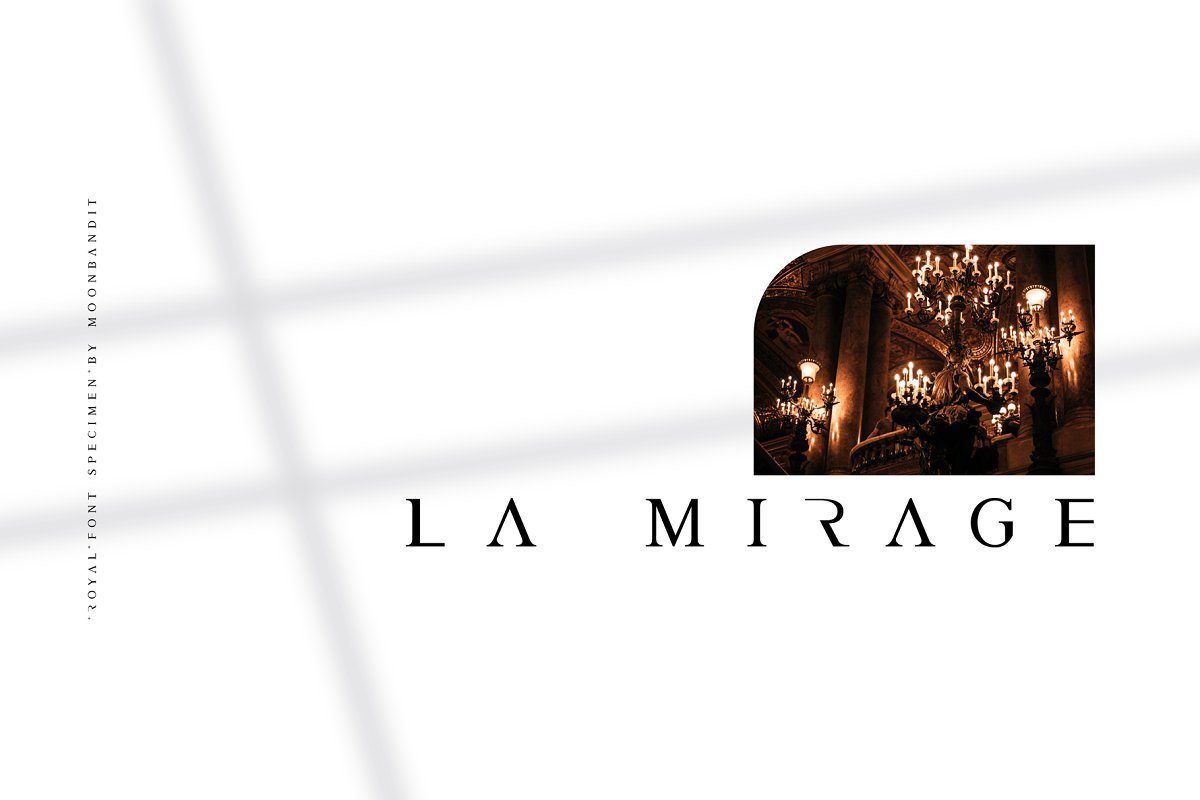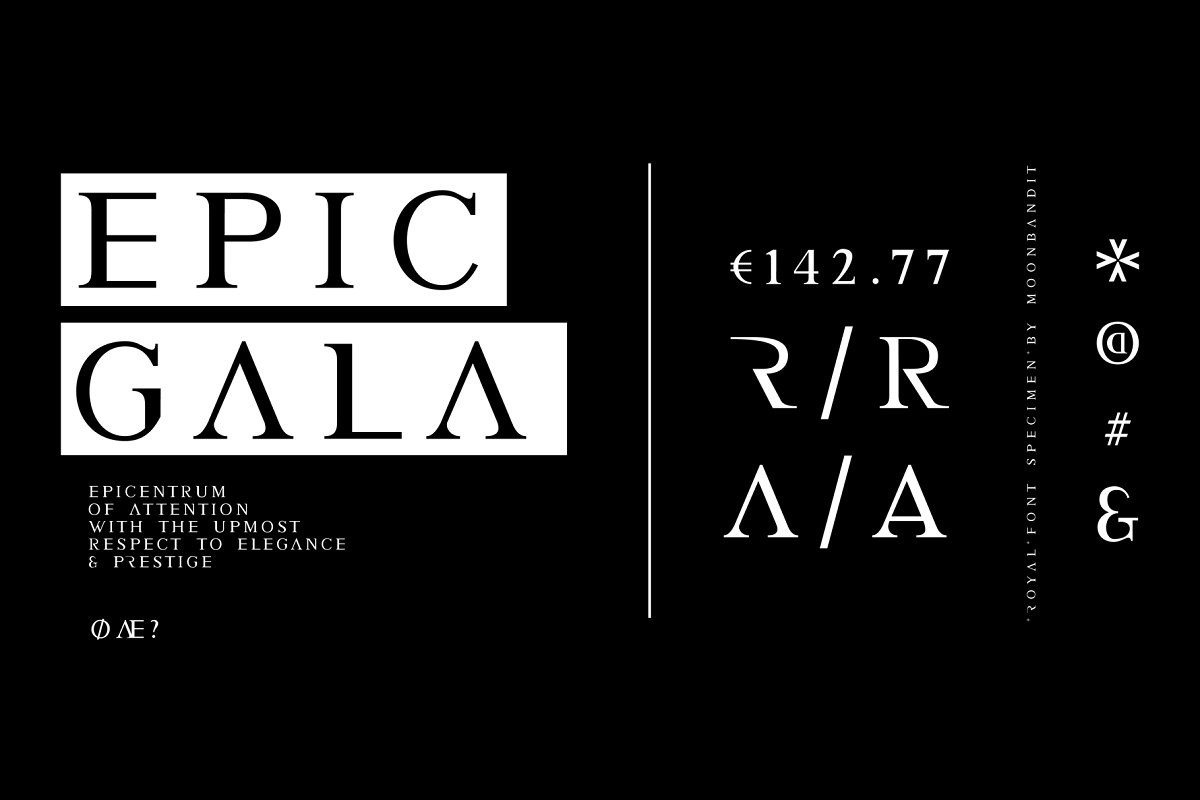
About the Royal An elegant luxurious Font
A luxurious high end elegant serif font, Crafted to emphasize and upscale your premium look with a twist, NotePlease keep in mind that this is a display font, It is intended to be used as a headings, title, branding, logo, wordmark and other application rather than typing a body text, If you need additional features, complete multilingual version, let us know through message and we will provide a complete product version in the shopThis font consist of:AlphabetNumeralKerningSeveral punctuationUpdate:now support multi language